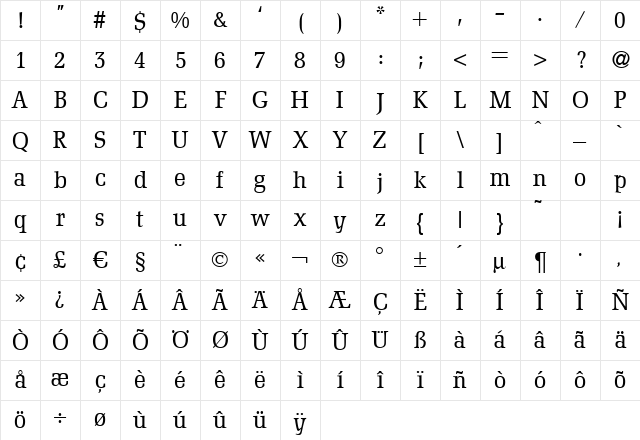
D790-Roman Regular
D790-Roman Family
Design Context for D790-Roman
D790-Roman is a composed and adaptable typeface that performs quietly and consistently across a wide range of design contexts.